What is a good font for a logo? Yes every designer’s mind have this question
So I spend bunch of hours to find a best fonts for logo design which will be rarely used in any project. So here I have curated more than 7 fonts which are highly suitable for logo design.
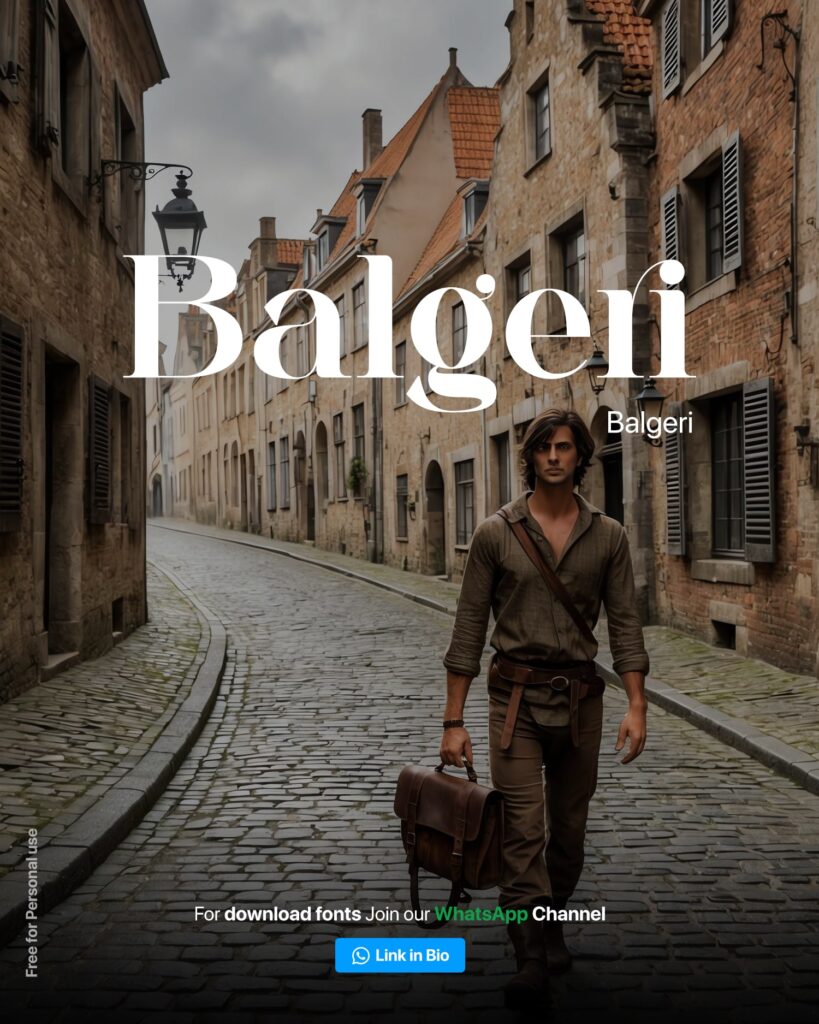
Balgeri Font
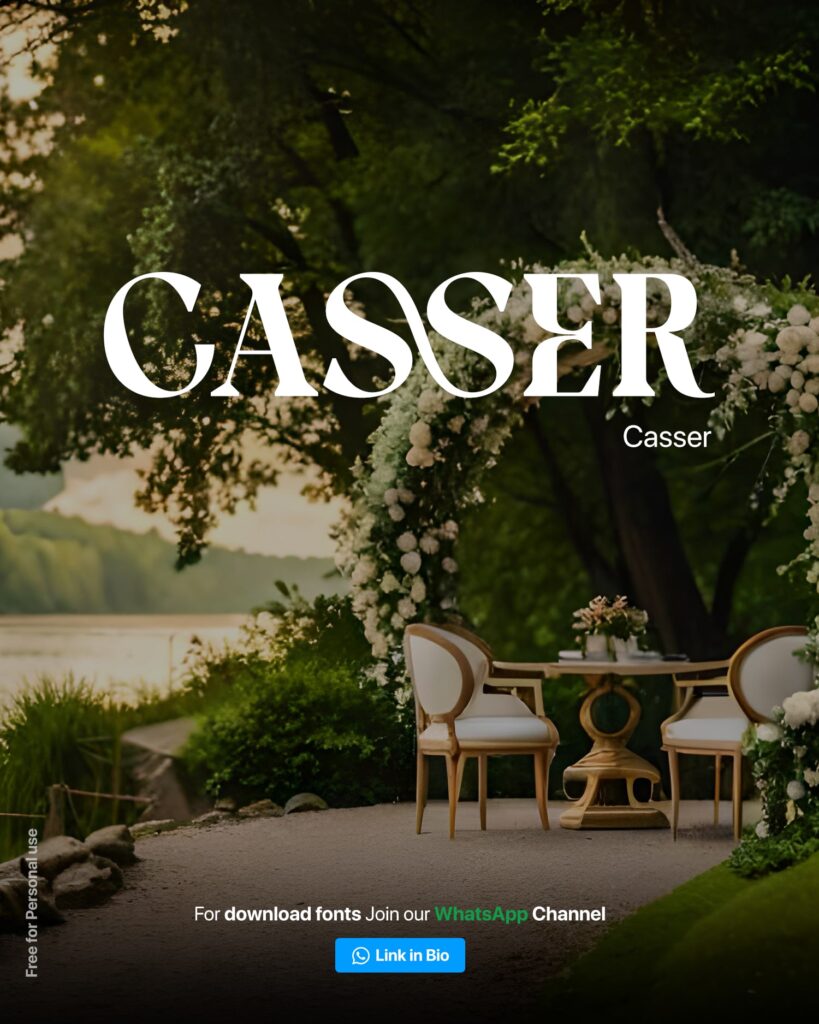
Casser Font
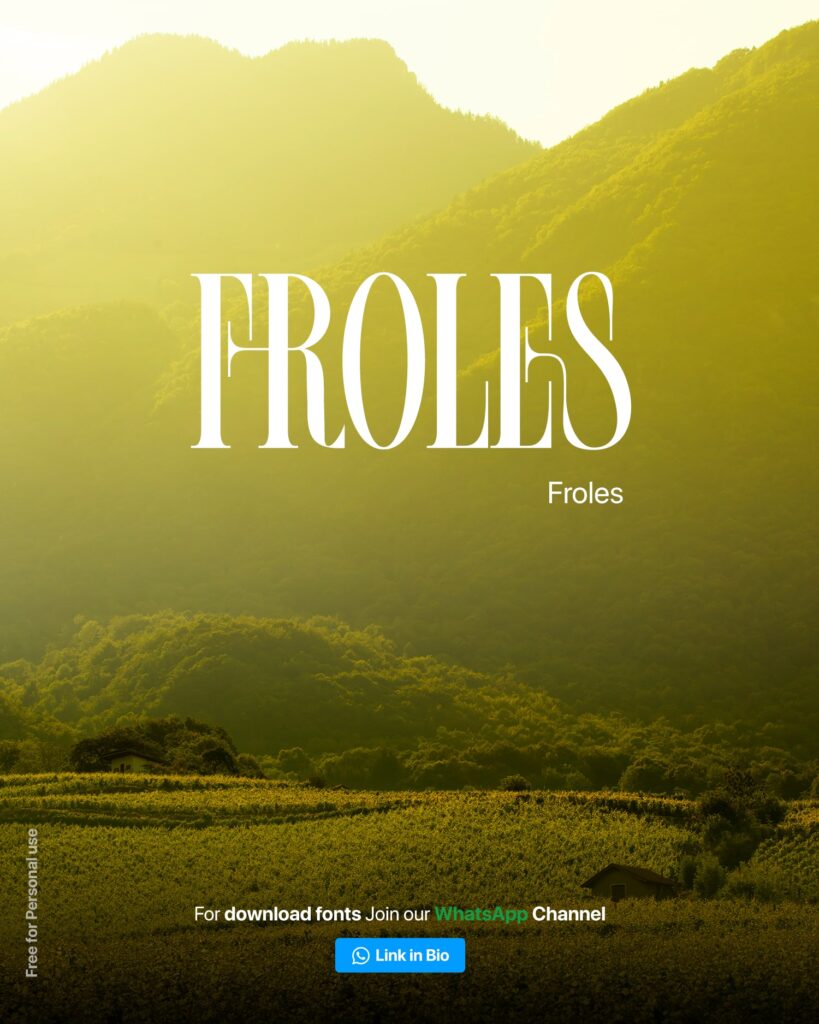
Froles Font
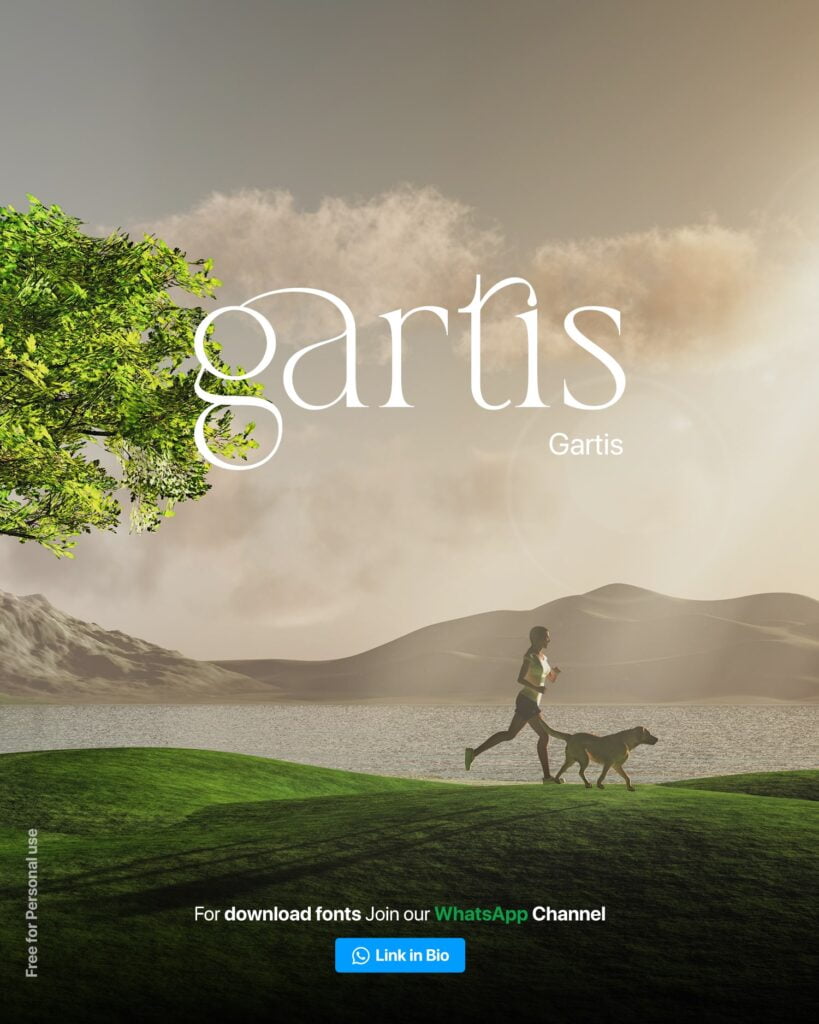
Gartis font
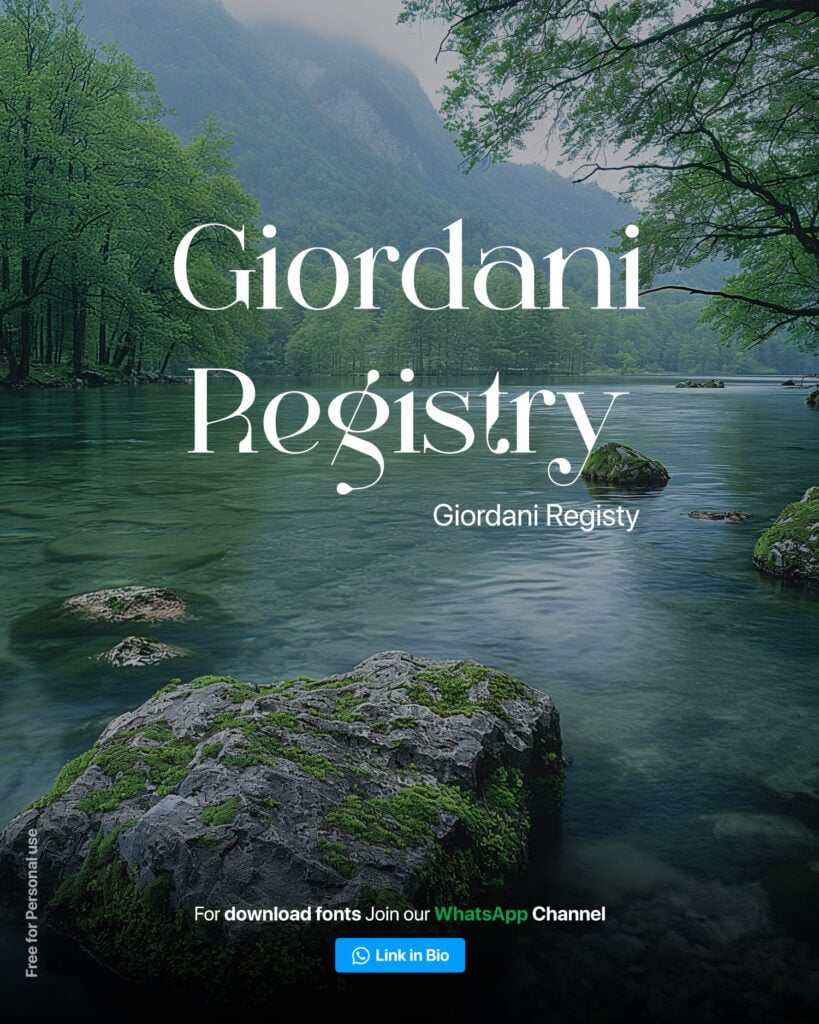
Giordani Registry Font
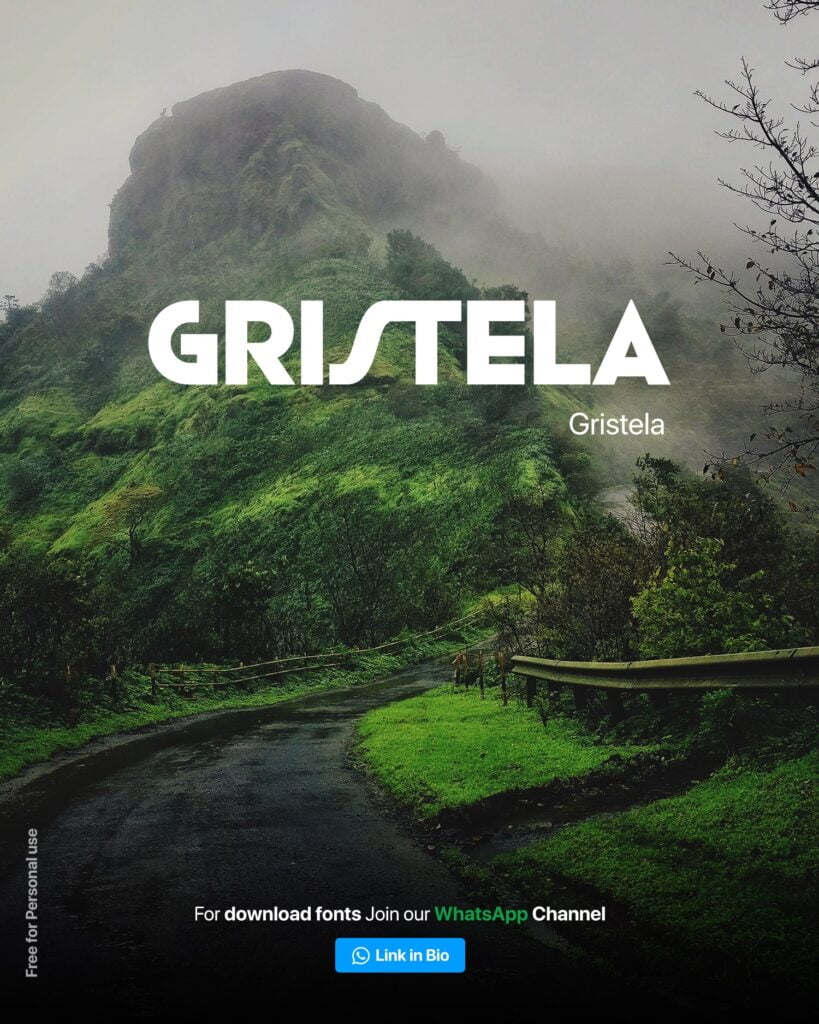
Gristela Font
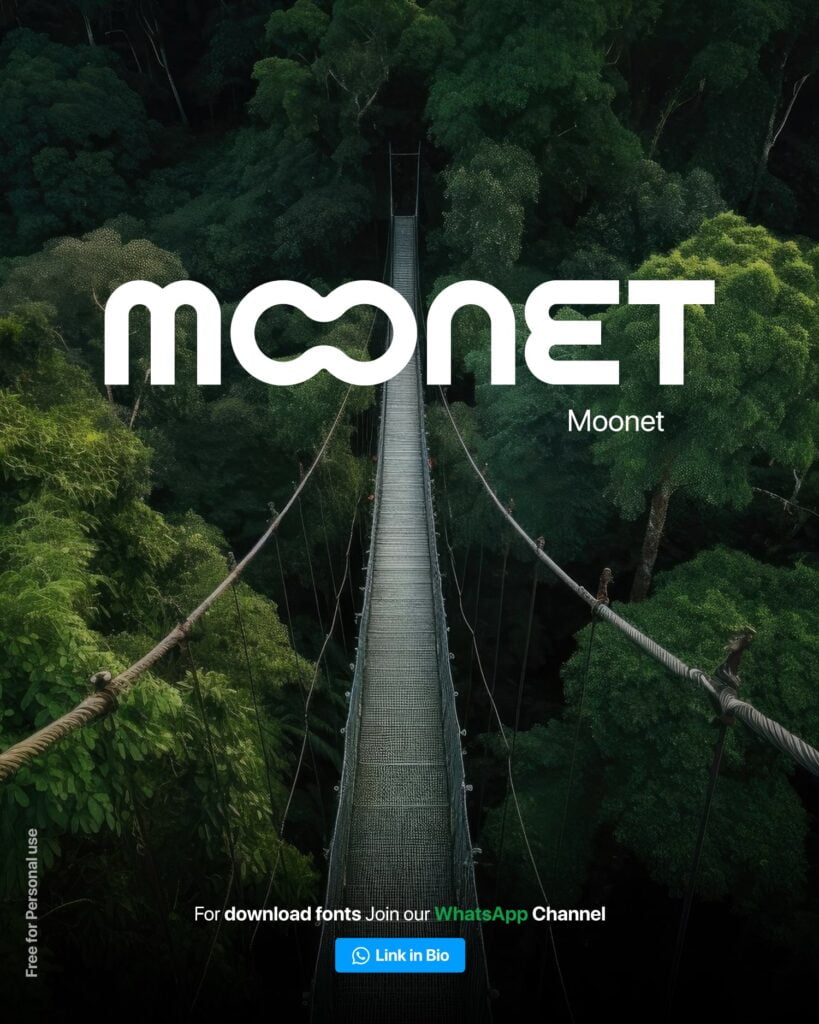
Moonet Font
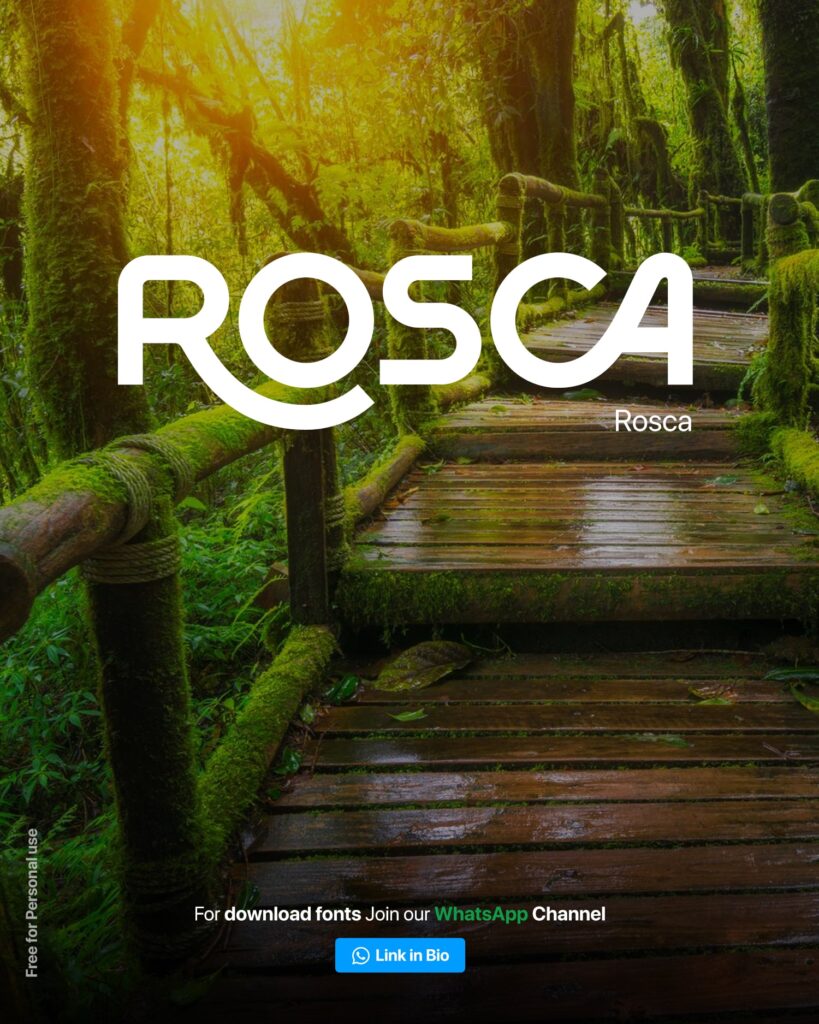
Rosca Font